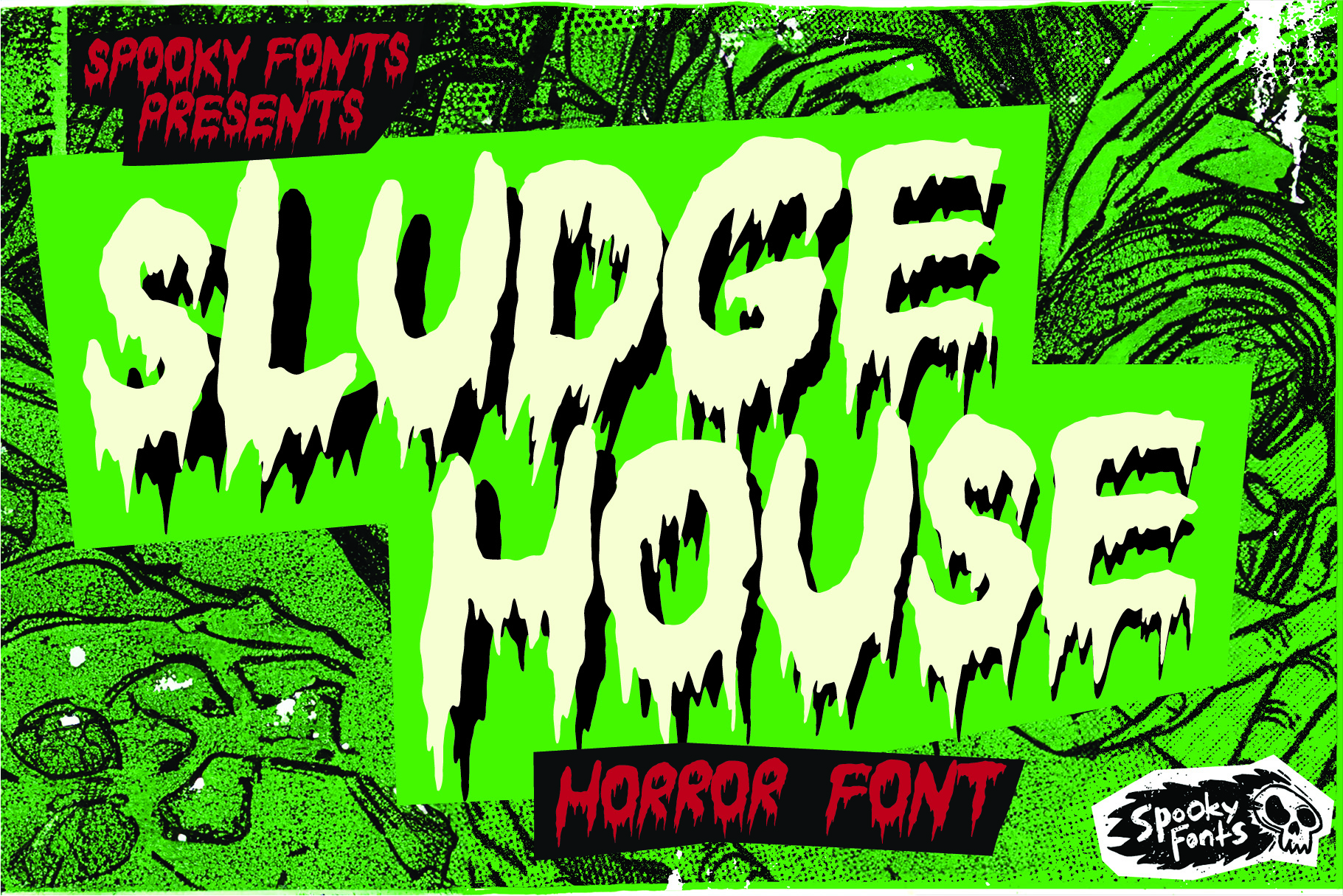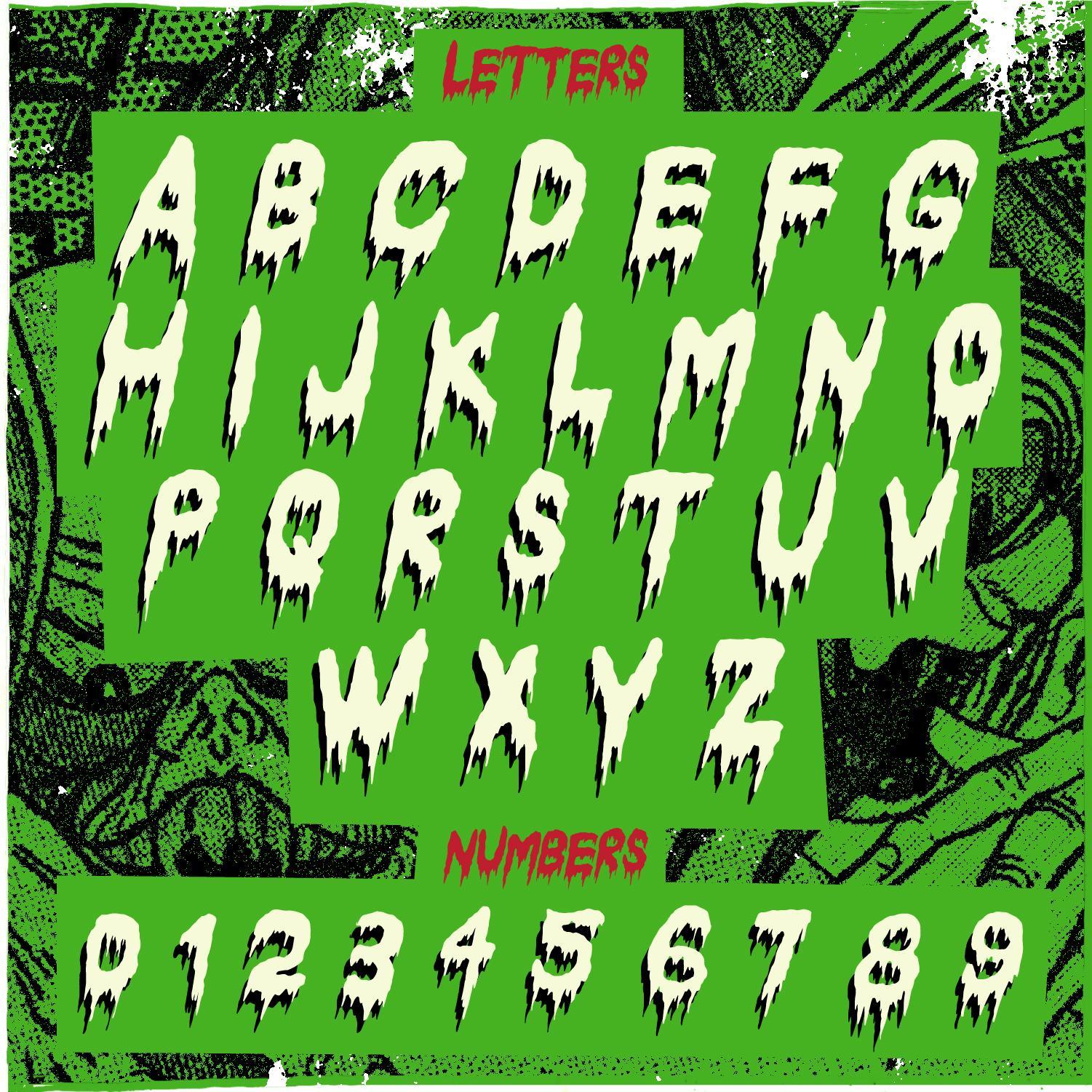
Sludge House
A drippy, VHS-inspired font that brings all the nostalgia of classic video store horror section.
Introducing Sludge House – a drippy, VHS-inspired font that brings all the nostalgia of classic video store horror sections. Perfect for creating spooky, retro aesthetic designs, this typeface will bring an unmistakable sense of dread and excitement to any project you create. Its ooze-like lines draw inspiration from classic SOV horror titles even Blockbuster wouldn’t carry. Add some retro villainy to your designs with Sludge House.
FEATURES
• Uppercase Character Set A-Z with Alternates
• Letters, Numerals & Simple Punctuation